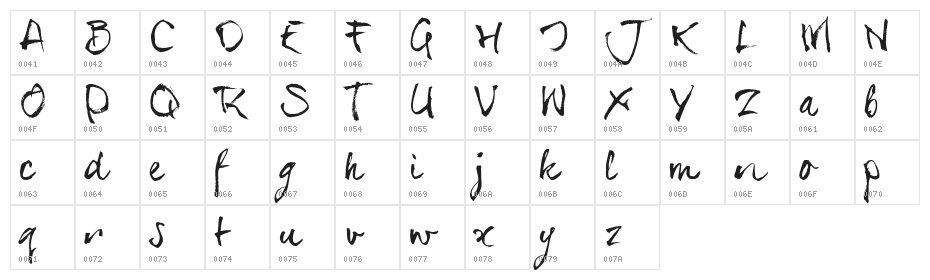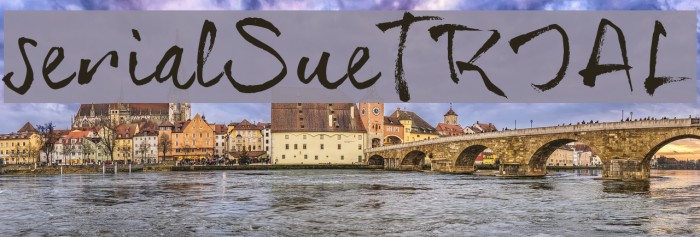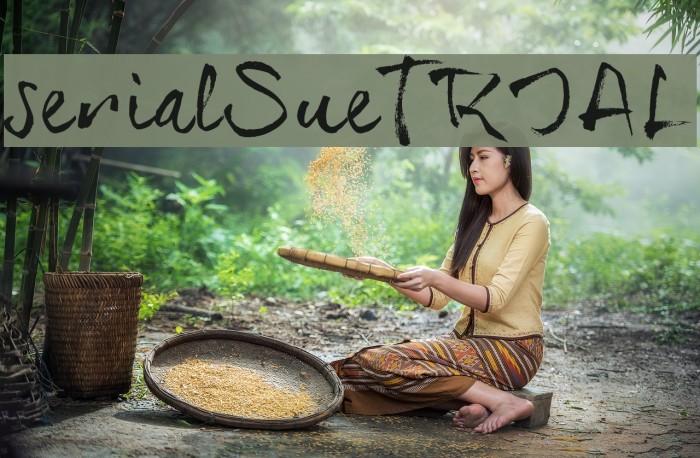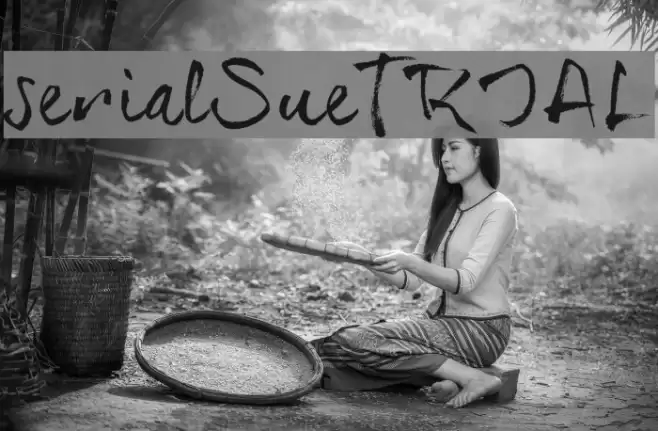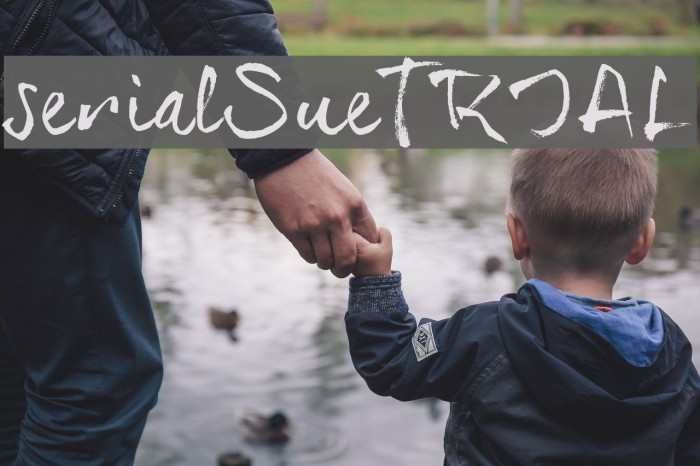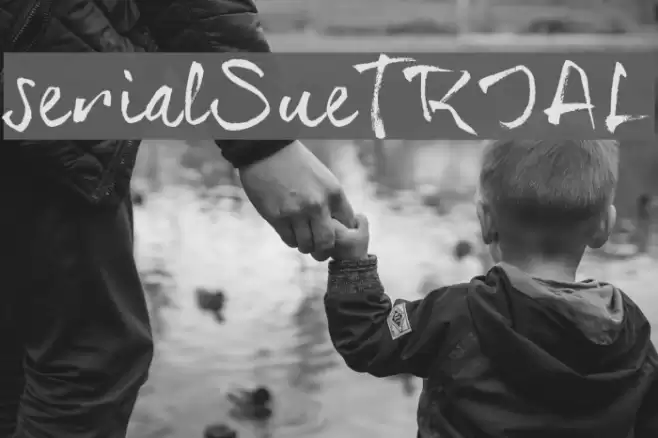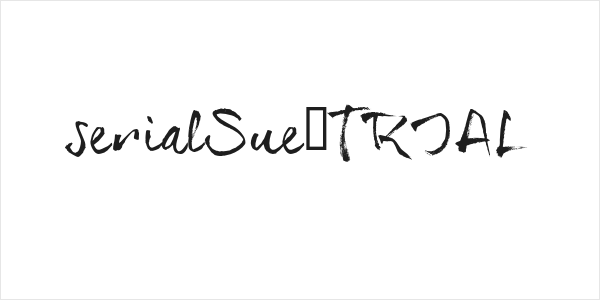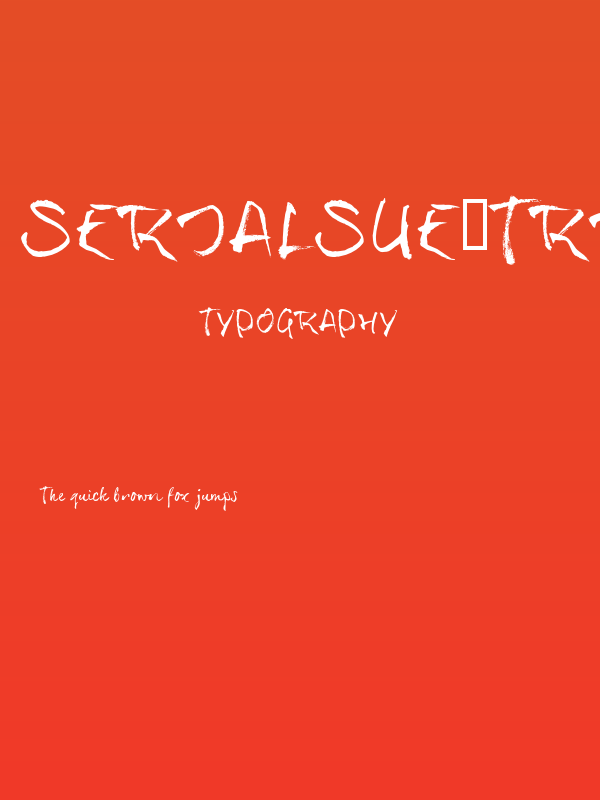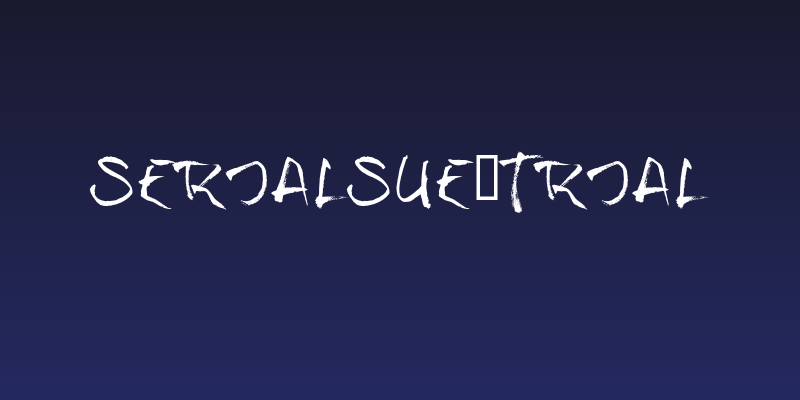
serialSue_TRIAL Font
serialSue_TRIAL Description
This font features a dynamic and expressive handwritten style, characterized by its bold, brush-like strokes that convey a sense of energy and movement. The uppercase letters are slightly irregular, adding a touch of spontaneity, while the lowercase letters maintain a consistent flow, enhancing readability. The overall appearance is artistic and informal, making it suitable for creative projects. The font lacks numerical characters and special symbols, focusing solely on alphabetic characters, which emphasizes its decorative nature.